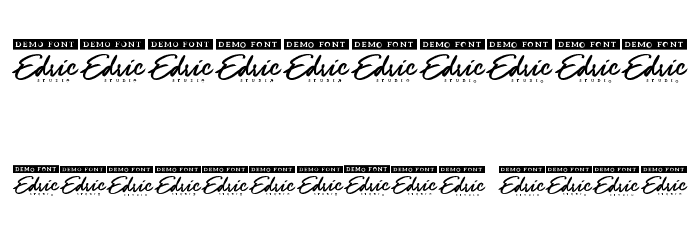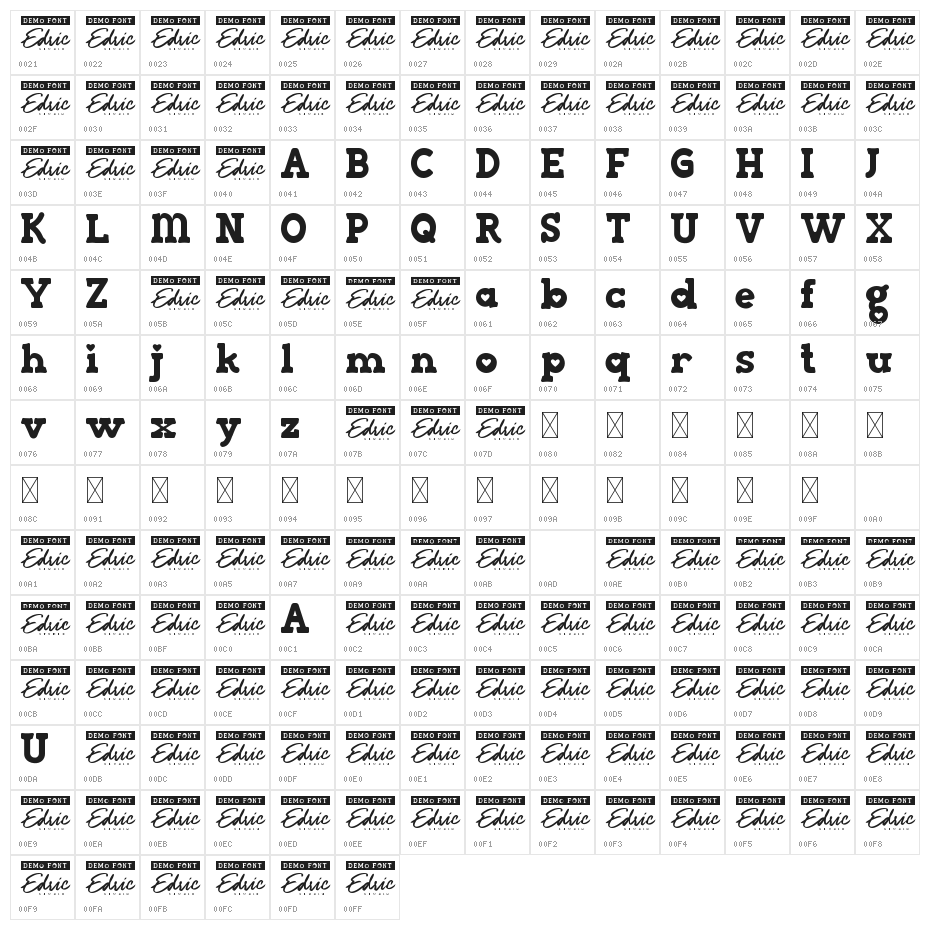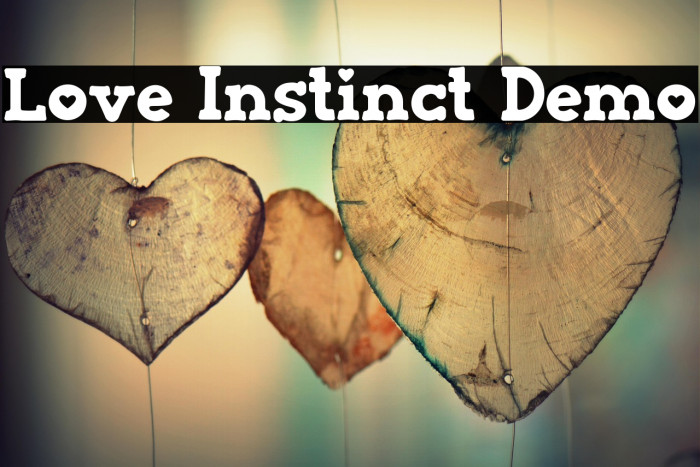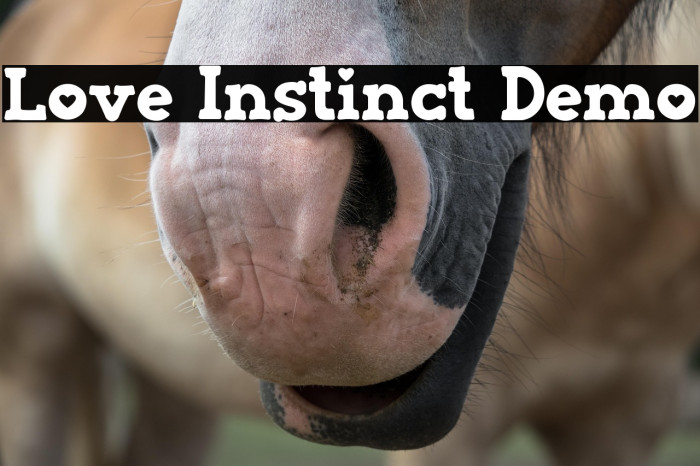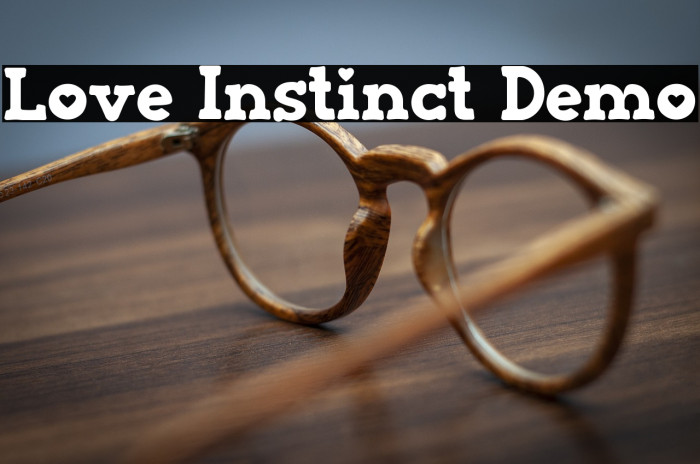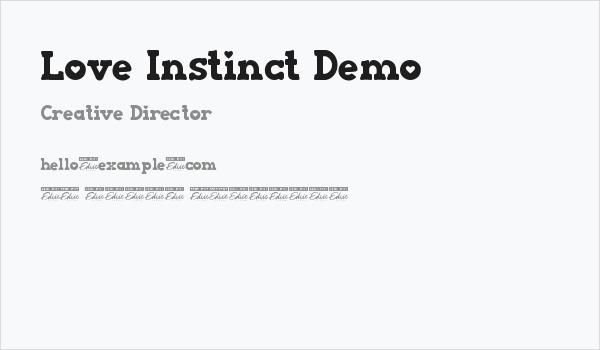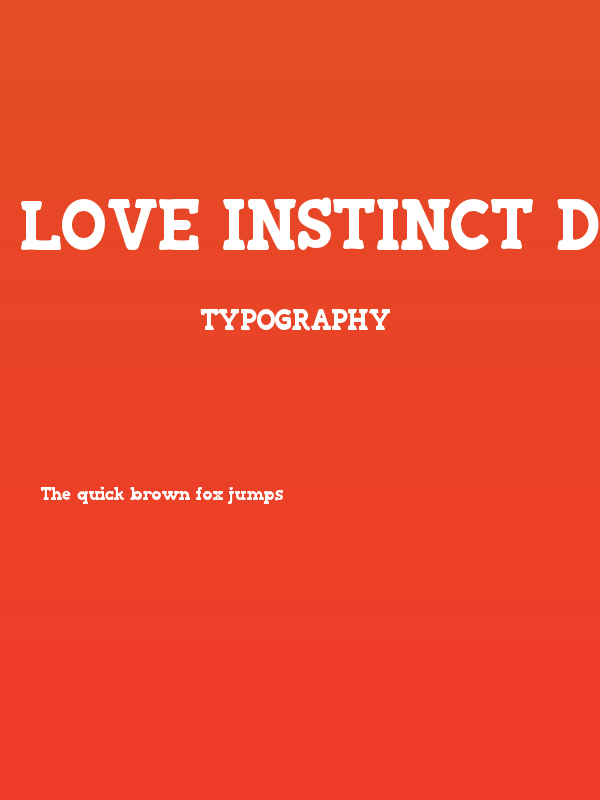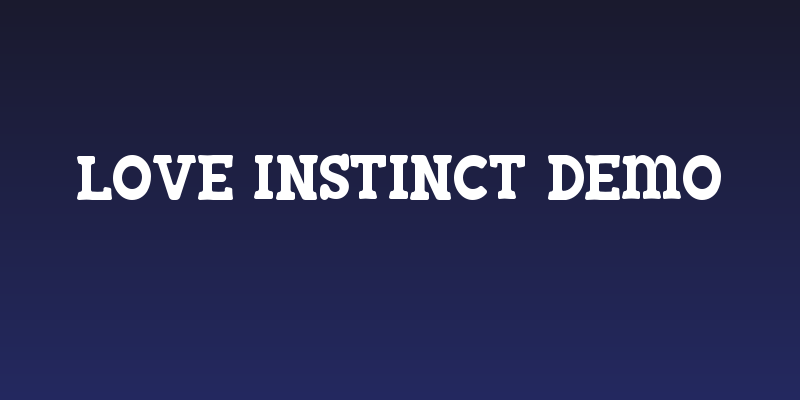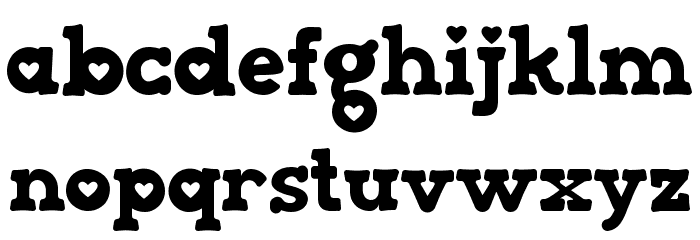
Love Instinct Demo Font
Love Instinct Demo Description
This font features a bold and playful design with a strong presence. The uppercase letters are robust and rounded, giving a sense of friendliness and approachability. The lowercase letters maintain the same playful style, with unique characteristics such as heart-shaped dots on the 'i' and 'j', adding a whimsical touch. The overall design is consistent and cohesive, making it suitable for projects that require a fun and engaging aesthetic. The font's thick strokes and rounded edges contribute to its bold appearance, while the spacing between characters is balanced, ensuring readability.
| Proposed Projects | Ideal for children's books, playful branding, greeting cards, and posters. |